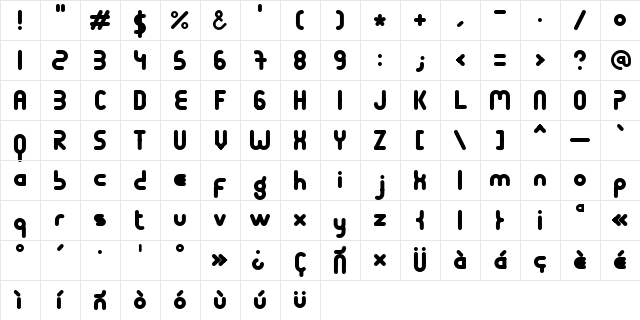
Terondaremorena Regular
| Foundry | Juan SebastiᮠRodrez Moranta |
Design Context for Terondaremorena Typeface
Terondaremorena offers clean, dependable letterforms without strong stylistic allegiance, making it a practical choice for designers who need flexibility.